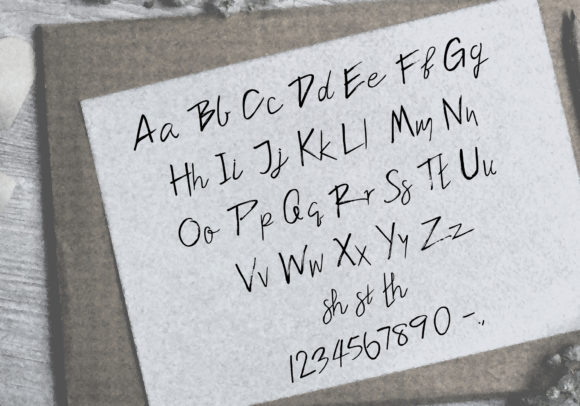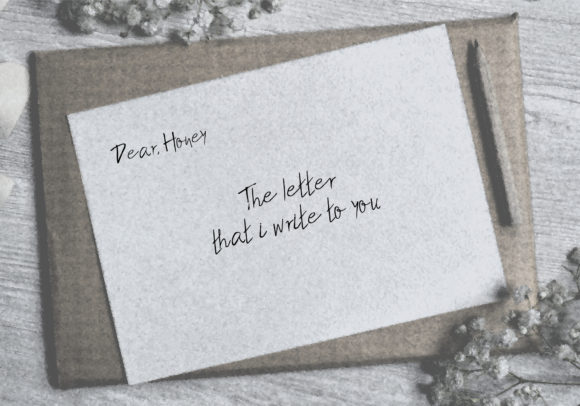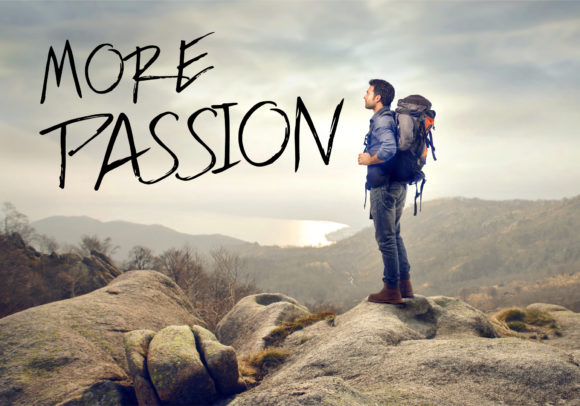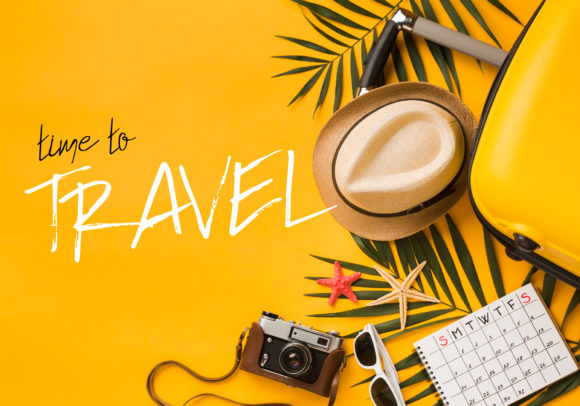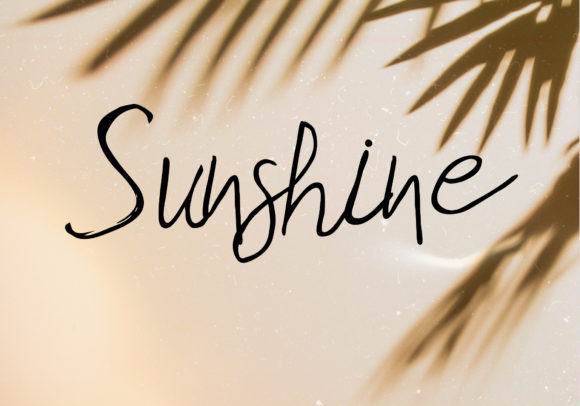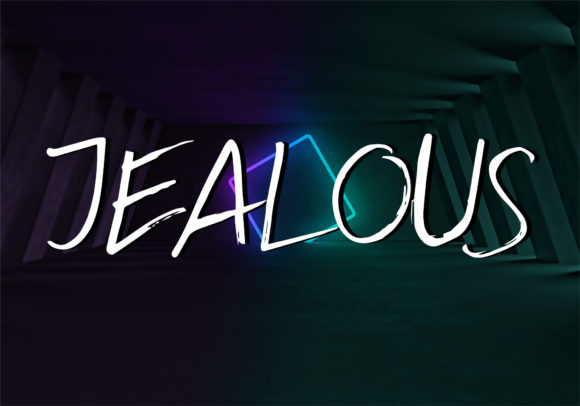
Introduction to Letter Font
As a designer, have you ever found yourself staring at a blank page, trying to bring a creative project to life? The perfect font can make all the difference. For me, that moment came when I stumbled upon the Letter Font – a beautiful, handwritten font created with a brush pen. Its clean and quirky design immediately caught my eye, and I knew I had to learn more.
The Letter Font is a valuable resource for designers, offering a unique and high-quality design element that can elevate any project. With its transparent background, it’s perfect for logos, branding, and social media graphics. Plus, it’s a free download, making it an accessible design resource for creatives of all levels.
Key Features of Letter Font
- High-quality font design with a transparent background, ideal for creative projects and design resources.
- Perfect for use in logos, branding, and other design elements where a unique and eye-catching font is required.
- Designed to be highly legible, making it suitable for both digital and print-based creative projects.
- Supports a wide range of languages, including Latin, Cyrillic, and Greek, making it a versatile design resource.
Honest Review: Letter Font
As a designer, I’m always on the lookout for high-quality design resources to elevate my creative projects. Recently, I stumbled upon the Letter Font, and I’m excited to share my honest review.
- ✨ High-quality typography: Letter Font offers a range of stylish and modern fonts that can instantly elevate any design project.
- ✨ Transparent background: The fonts are provided in a transparent background format, making it easy to customize and integrate them into any design.
- ⚠️ Limited customization options: While the fonts are high-quality, the customization options are limited, which may not be ideal for designers who like to fine-tune their designs.
- ⚠️ Limited font range: While the font range is still impressive, it may not be as extensive as some other design resources available.
Overall, I’m impressed with the Letter Font, and I think it’s an excellent addition to any designer’s toolkit. While it may have some limitations, the quality of the fonts and the ease of use make it a great resource for creative projects. I’d definitely recommend giving it a try.
Letter Font
Experiment with different font sizes and colors to create a unique look. Use the transparent background feature to create a subtle effect. Combine Letter Font with other design elements to create a visually appealing design.
Letter Font is perfect for creating invitations, business cards, and social media graphics. It’s also great for use in logos, branding materials, and other creative projects.